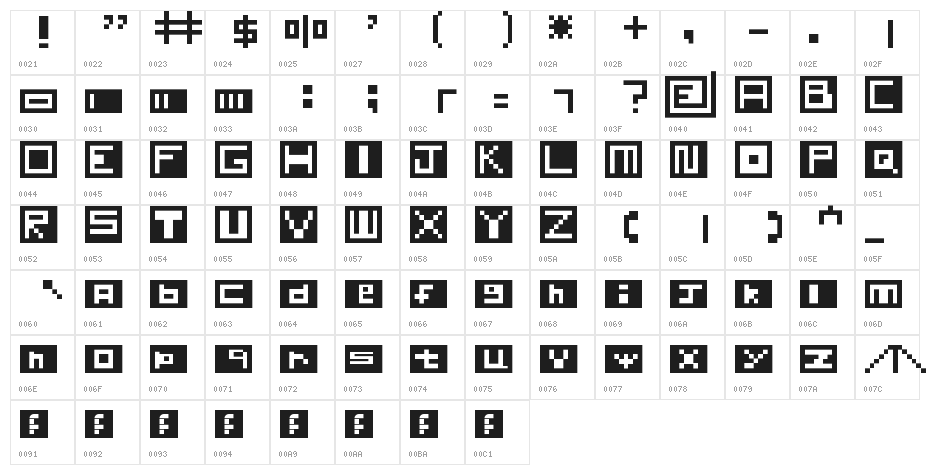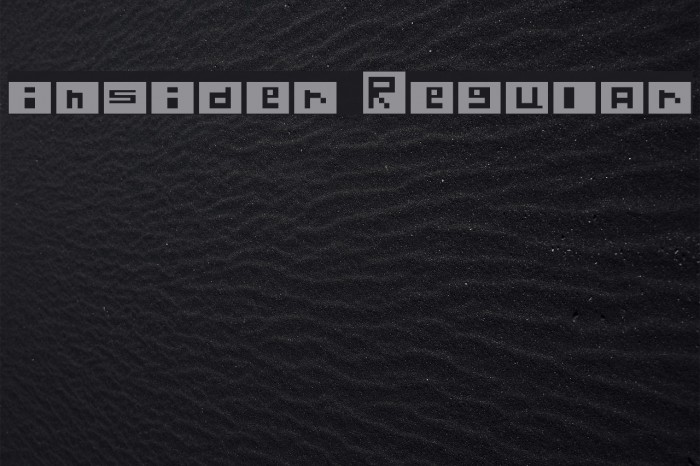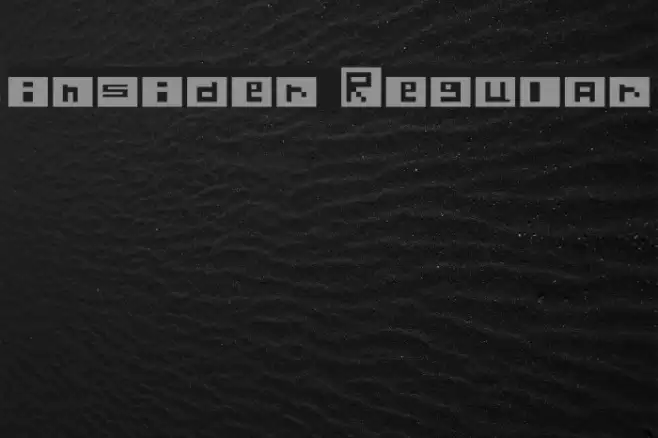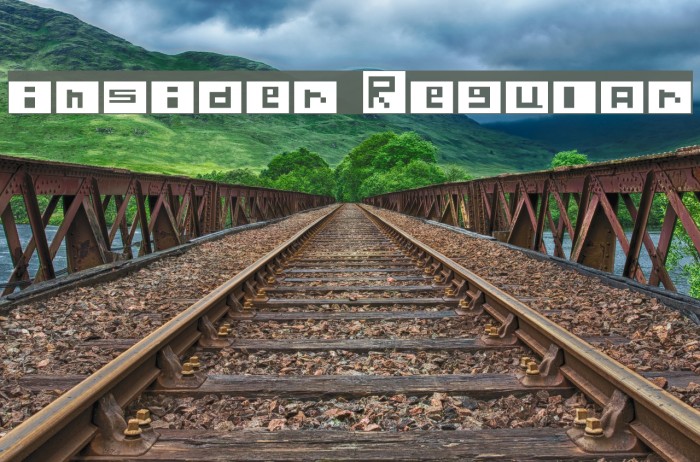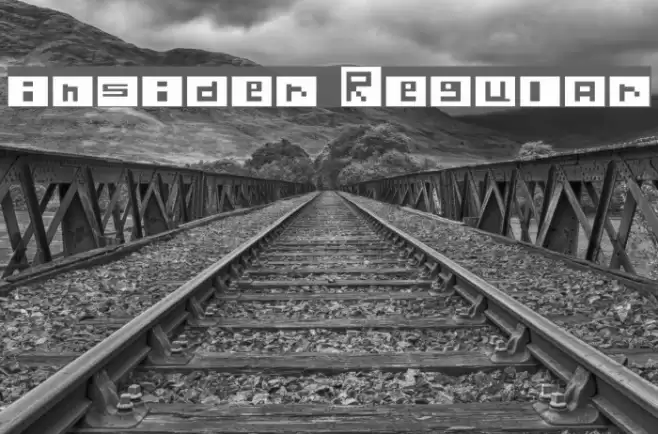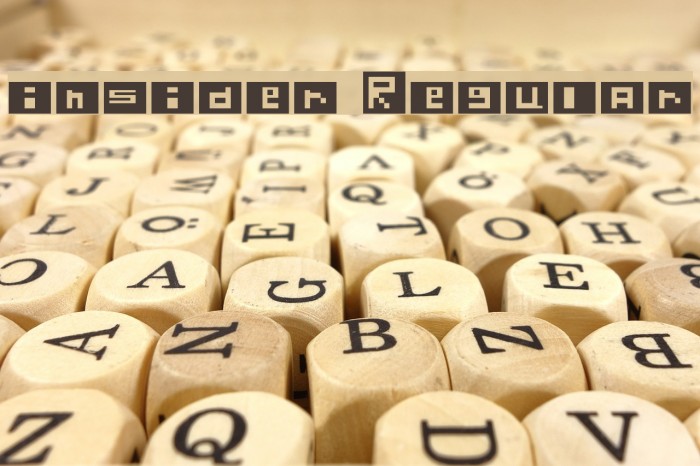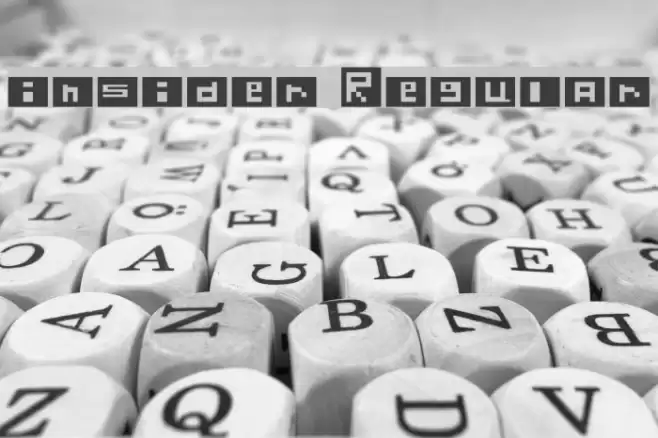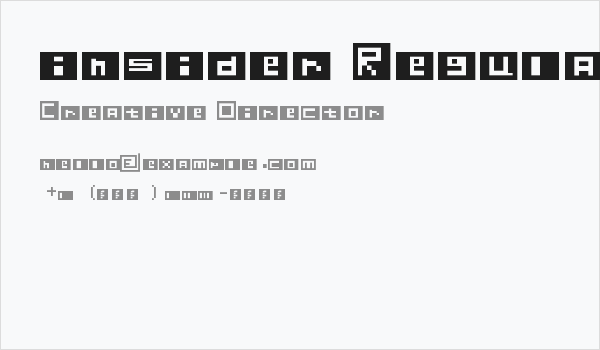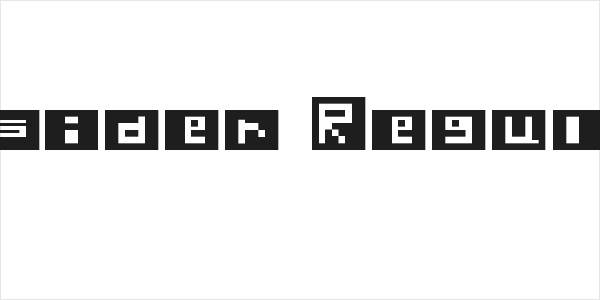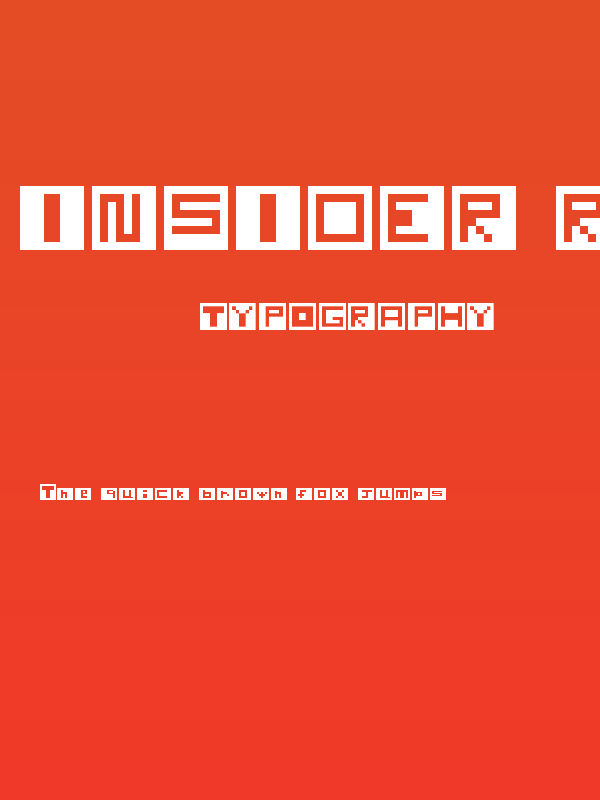
insider Regular Font
insider Regular Description
This font features a bold, geometric design with a pixelated appearance, reminiscent of early digital displays or video game graphics. Each character is enclosed in a square, giving it a blocky and structured look. The uppercase letters are distinct with sharp angles and a uniform height, while the lowercase letters maintain the same blocky style but with slight variations in height and width. The numbers and special characters follow the same design principles, ensuring consistency throughout the set. This font's unique style makes it stand out, offering a retro yet modern aesthetic.
| Use Case | Logos, Posters, Digital Art |
| Proposed Projects | Ideal for video game design, digital art projects, retro-themed posters, and tech-related branding. |